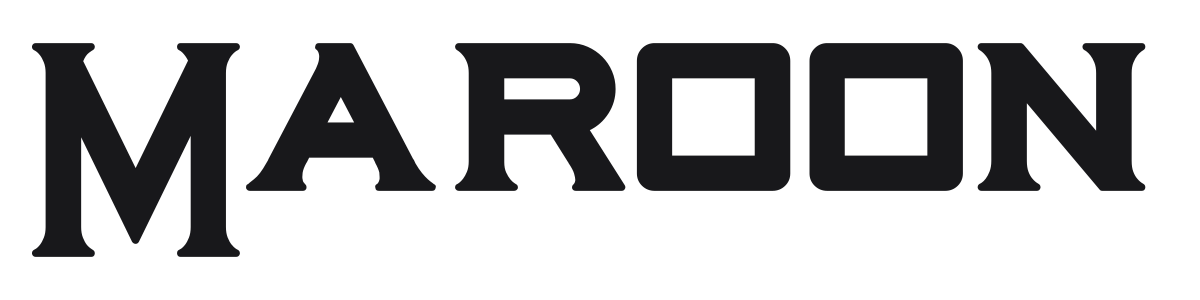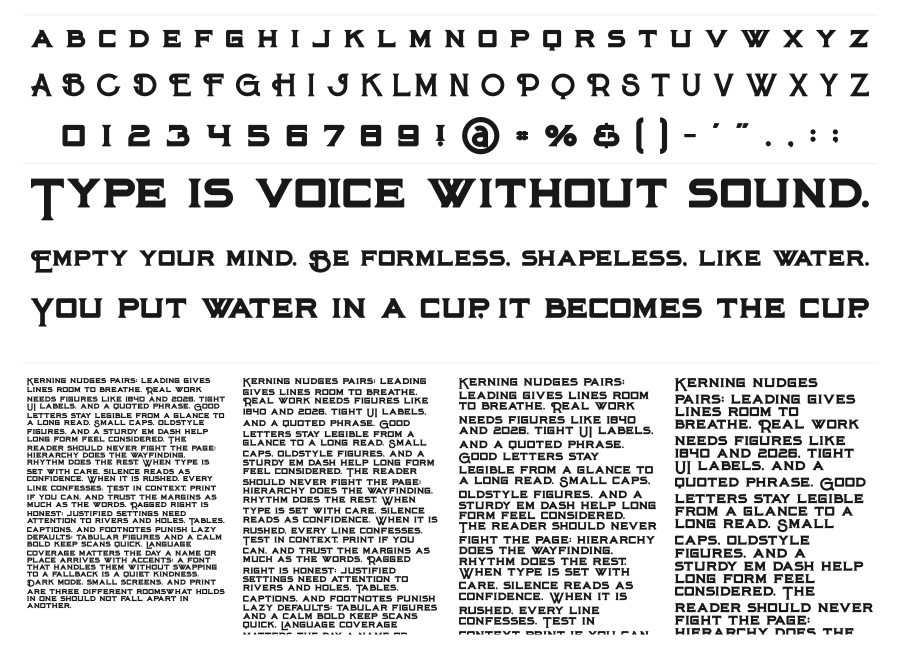
Maroon
Maroon is a heavy slab-serif display face with angular wedge serifs and a blocky, industrial construction. Its near-monoweight strokes and wide proportions give it a commanding vintage presence drawn from art deco and Americana printing traditions. Strong at large sizes for posters, sports branding, and editorial headlines.